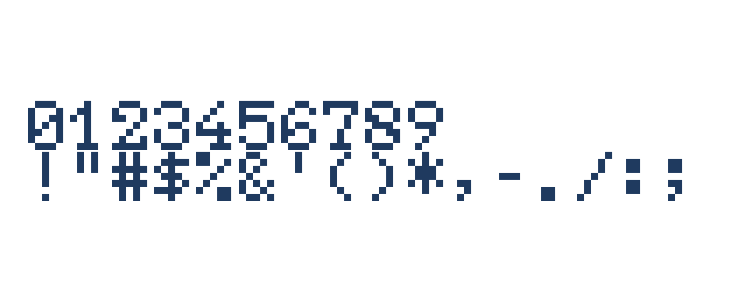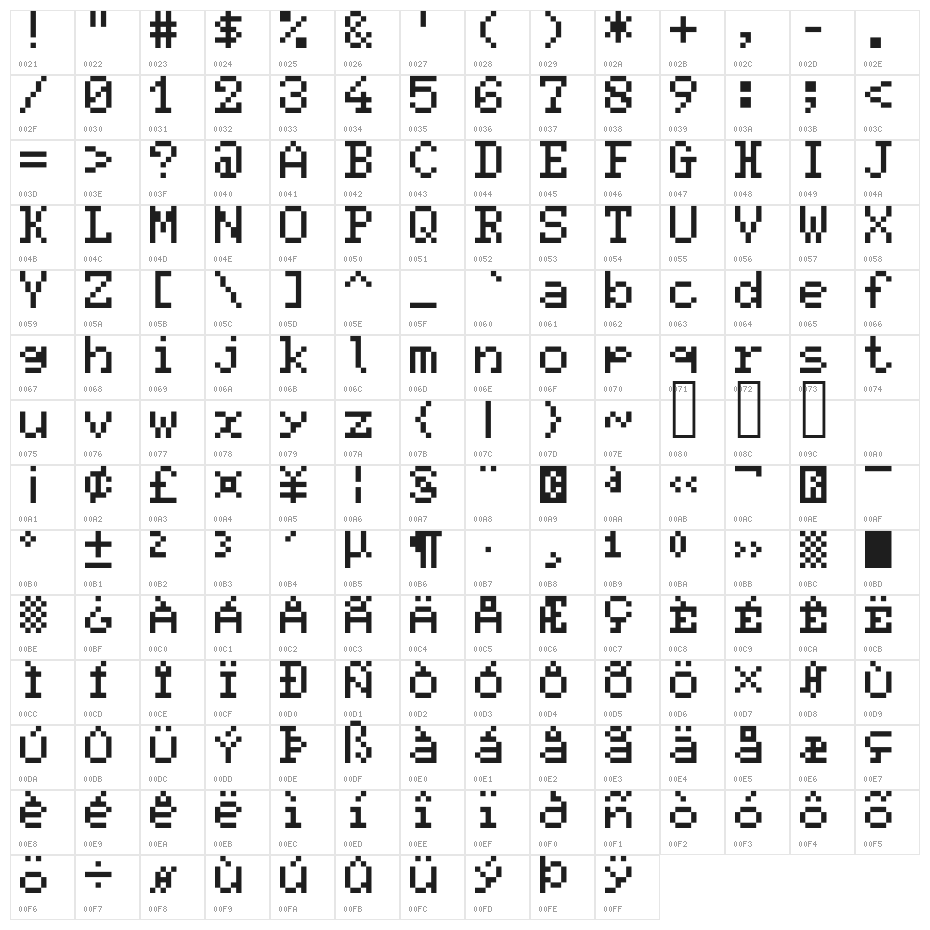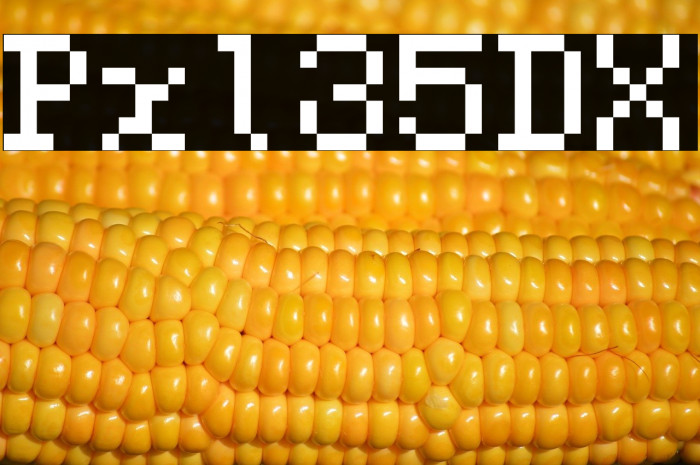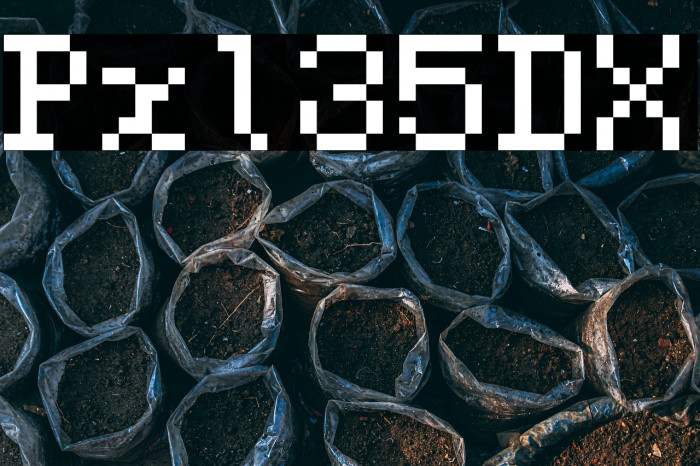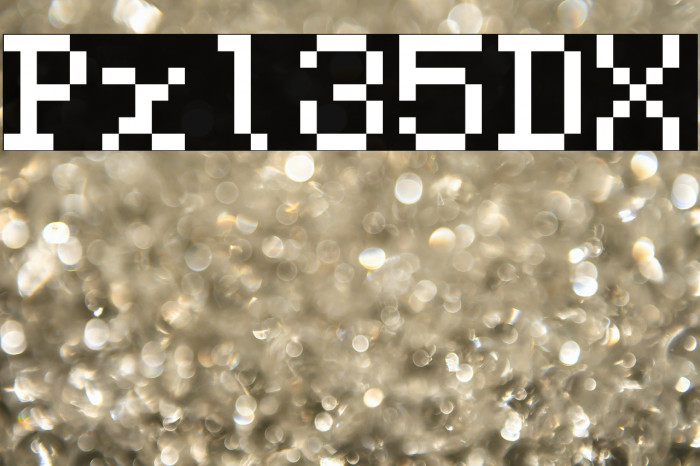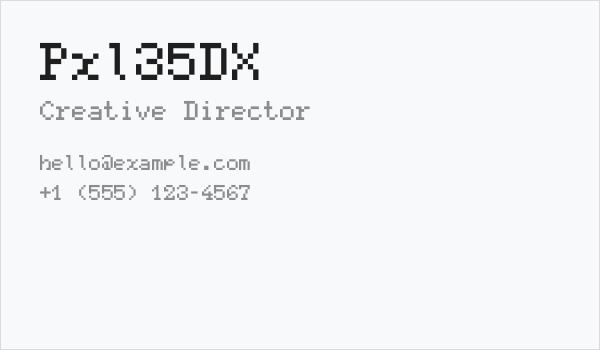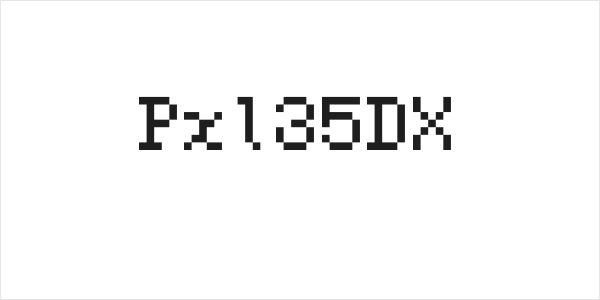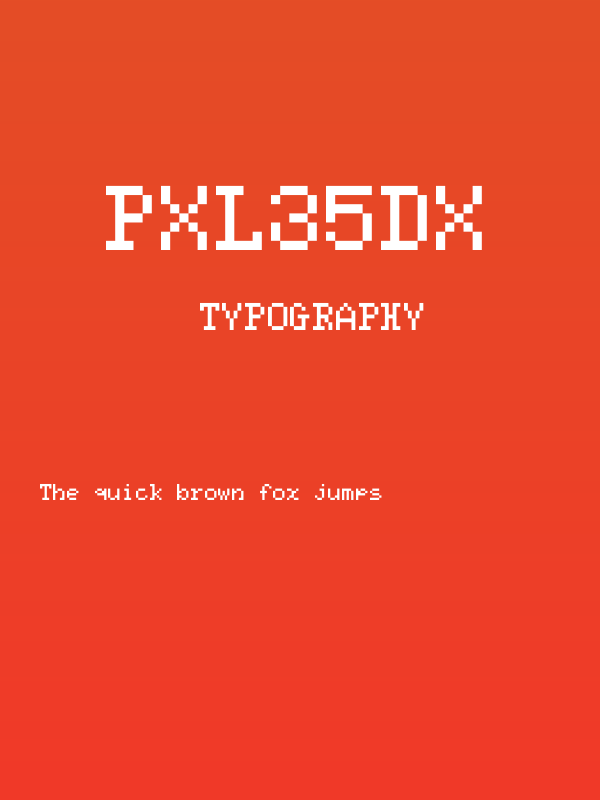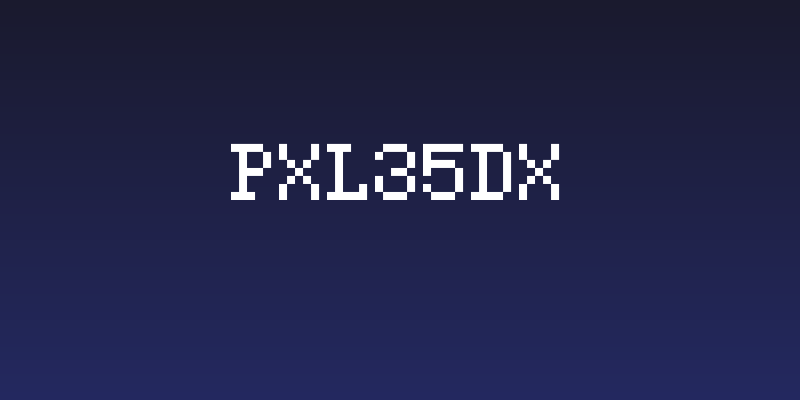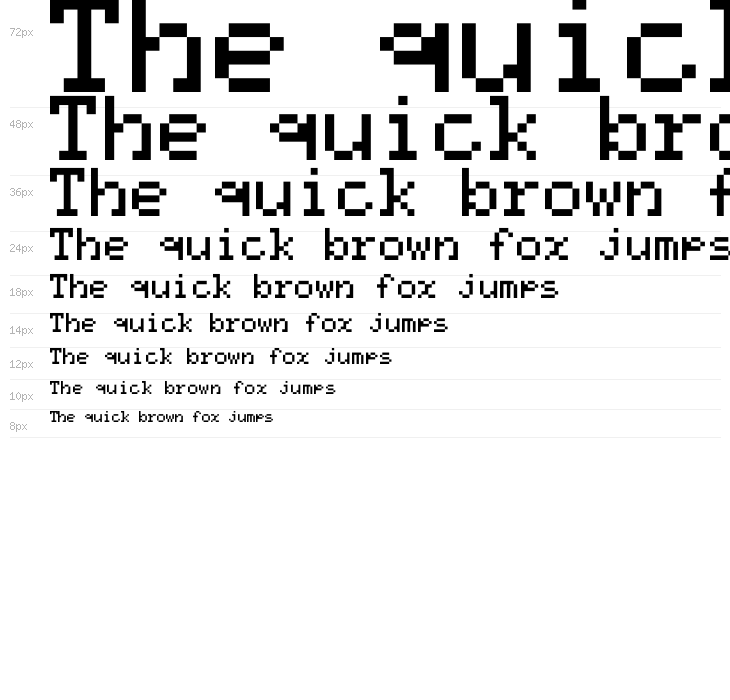
Pxl35DX Font
Pxl35DX Description
This font features a pixelated, blocky design reminiscent of early digital displays and video games. Each character is composed of a grid of square pixels, giving it a distinctly retro and digital aesthetic. The uppercase and lowercase letters maintain a consistent height and width, contributing to a uniform appearance. The numerals and special characters follow the same pixelated style, ensuring cohesion across all glyphs. This font's simplicity and clarity make it highly legible, even at smaller sizes, while its nostalgic charm evokes a sense of vintage computing.
| Use Case | Logos, Headlines, Digital Art |
| Proposed Projects | Ideal for retro-themed designs, video game graphics, digital art projects, and any creative work that seeks to capture the essence of early computing aesthetics. |